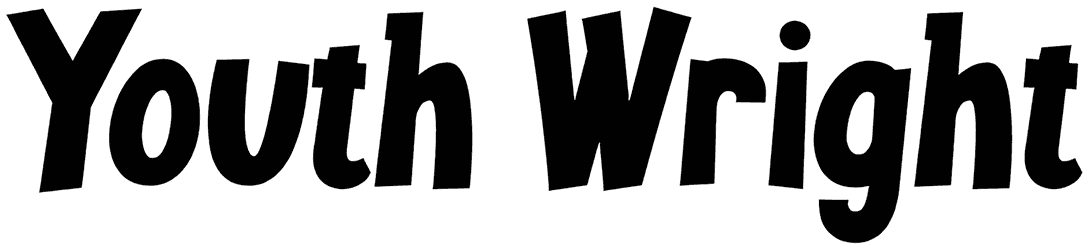
Youth Wright Font
Youth Wright is a comic font with three different styles that can be used to create an interesting effect and give your digital works a more playful appearance and feel.
This fancy font is a great addition to any presentation, from editorials, logos, and posters to social media, this happy font deserves appreciation for its bold tones. If you like a good challenge, by all means, go ahead and grab it to suit you!